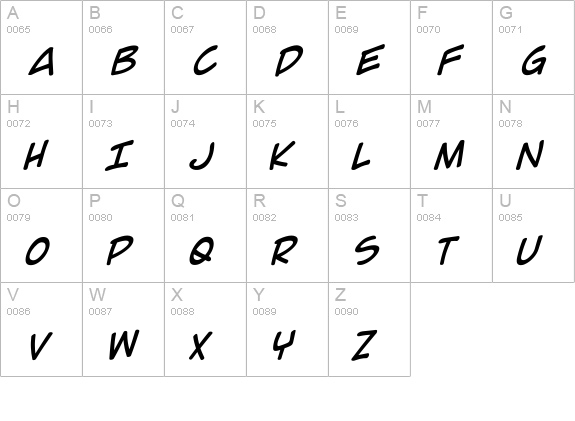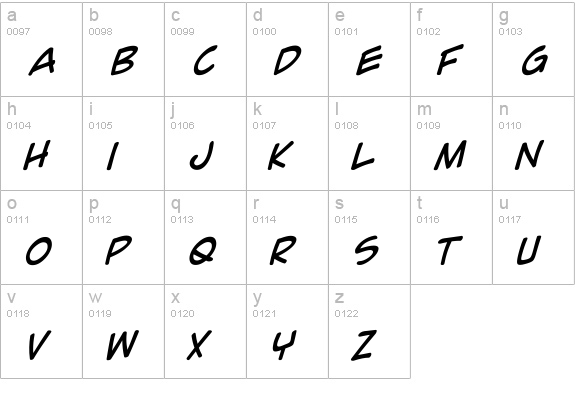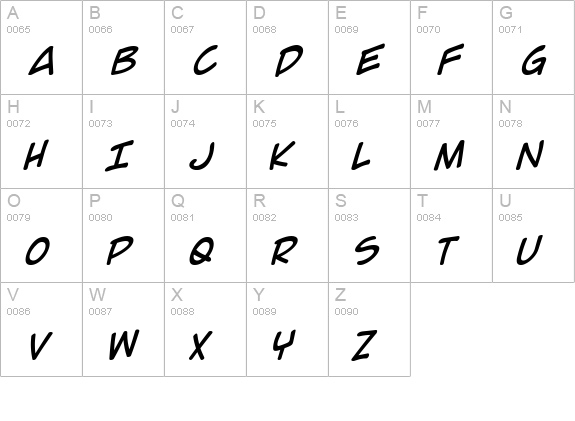
Comic Geek Italic is a distinctive, italic variant in the Comic typeface family \xE2\x80\x94 well suited to design and typography projects.
Comic Geek Italic font is a fun and whimsical typeface perfect for all your comic book or geek-themed designs. With its playful slanted style, this font adds a touch of character and personality to any project. Whether you're creating posters, logos, or social media graphics, Comic Geek Italic will bring a dynamic and energetic vibe to your work. The best part? Comic Geek Italic font is completely free to download at FontsMarket.com! So go ahead and unleash your inner comic geek with this exciting and unique typeface. Let your creativity soar with Comic Geek Italic font, available for free download now.